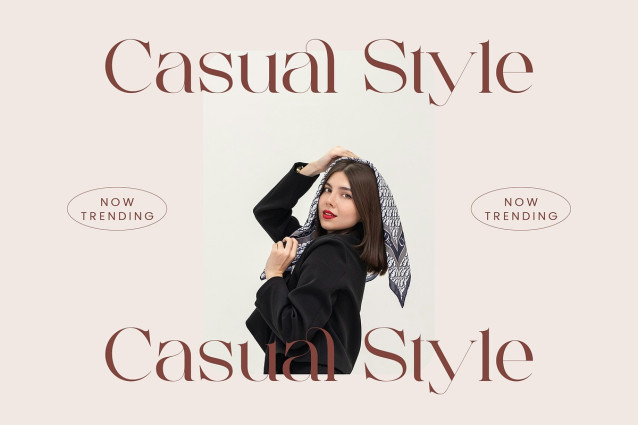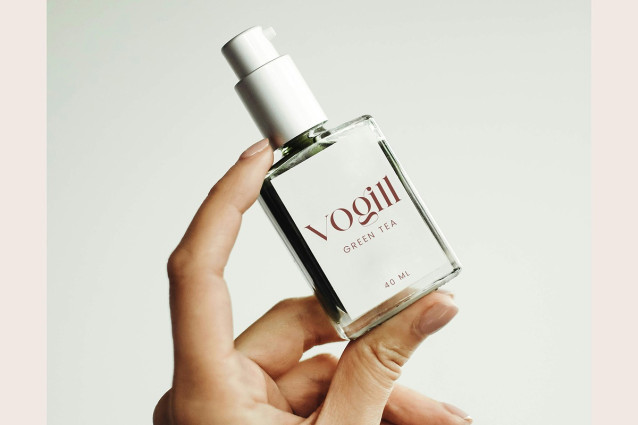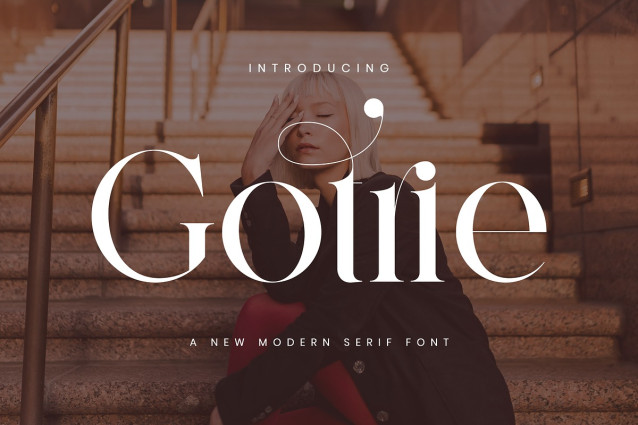
Gotrie Font
Gotrie Font – Stylish Ligature Typeface, inspired by the famous minimalist logo perfect for the purposes of designing templates, brochures, videos, advertising branding, logos and more.